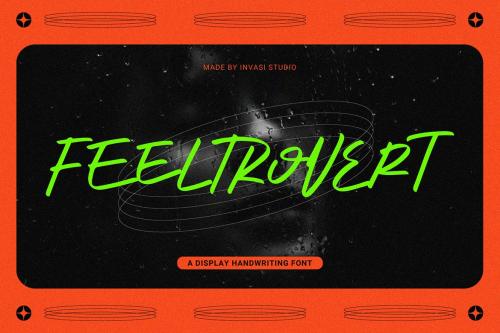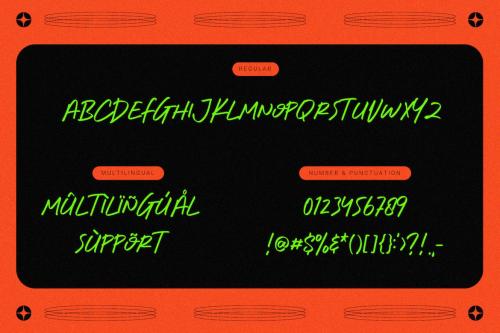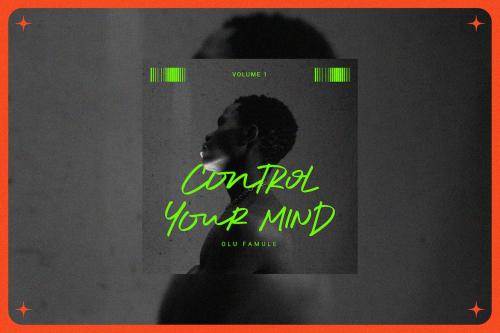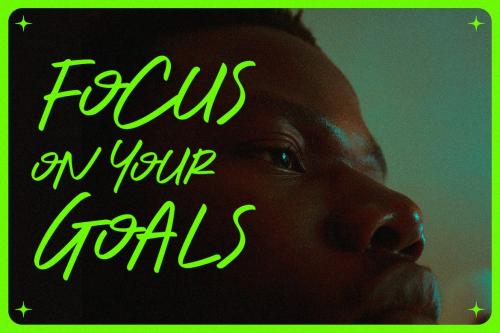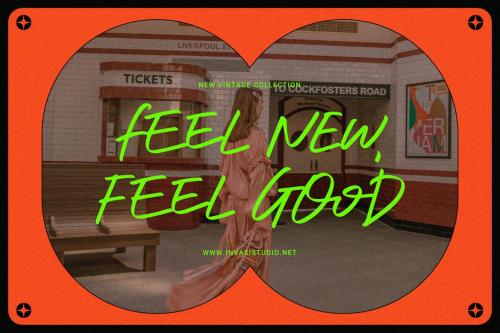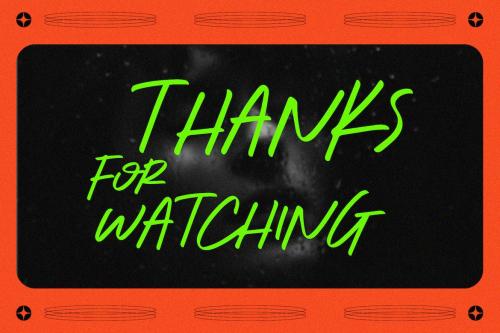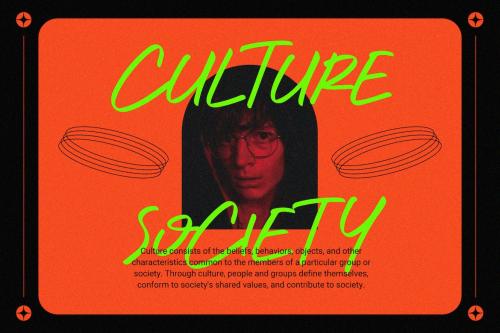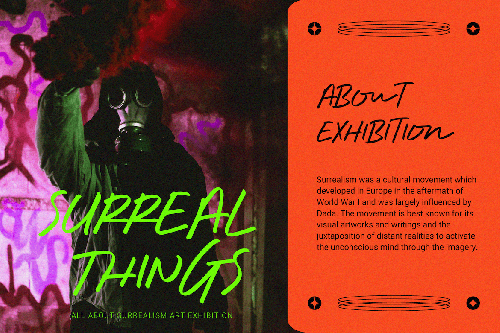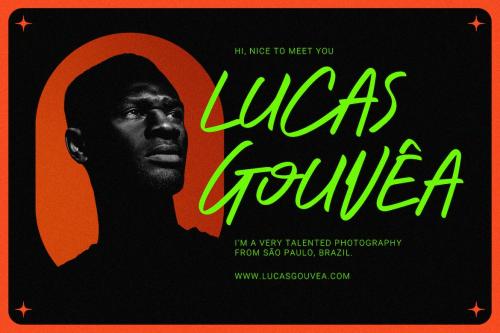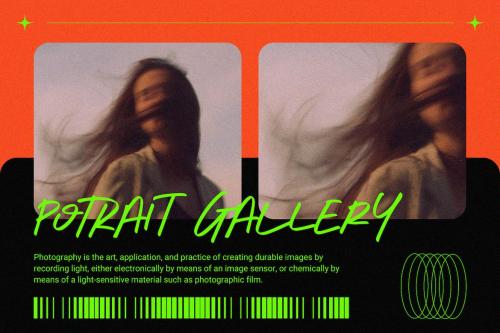
菲特罗弗特 - 一种展示手写字体
Feeltrovert - A Display Handwriting Font
Feeltrovert born from Handwriting style combines stylish and modern glyph with an elegant look; delivering a script hand draw that is guaranteed to add an eye-catching suitable for your quotes, logo designs, brand imagery, product packaging, merchandise & social media posts.
Feeltrovert Features:
- Multi-language
- Punctuation
- Ligatures
- Alternate